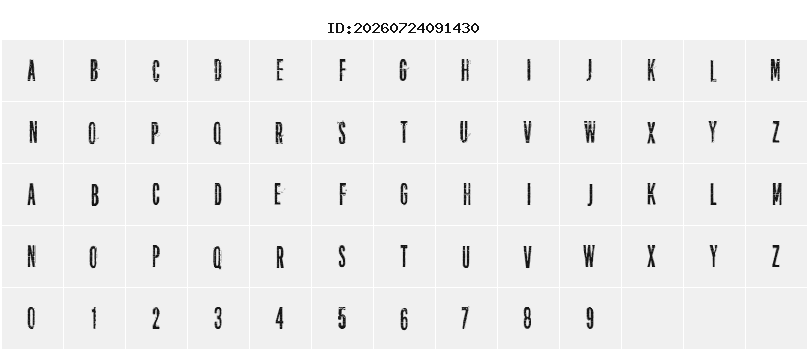
• Font Name: Everything is possible
• Designer: junkohanhero
About Everything is possible.ttf
Everything is possible.ttf is a modern, elegant sans-serif font designed for ultimate readability and visual harmony. Perfect for branding, headlines, web design, and print materials.